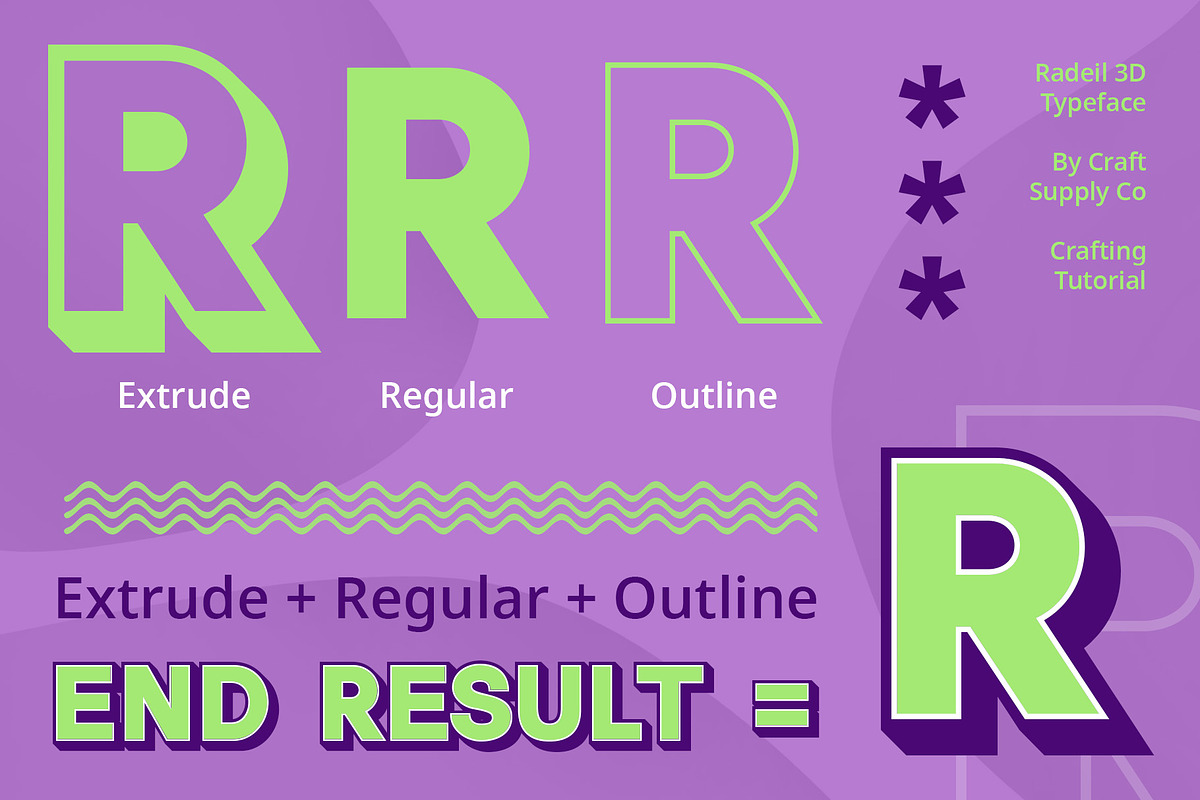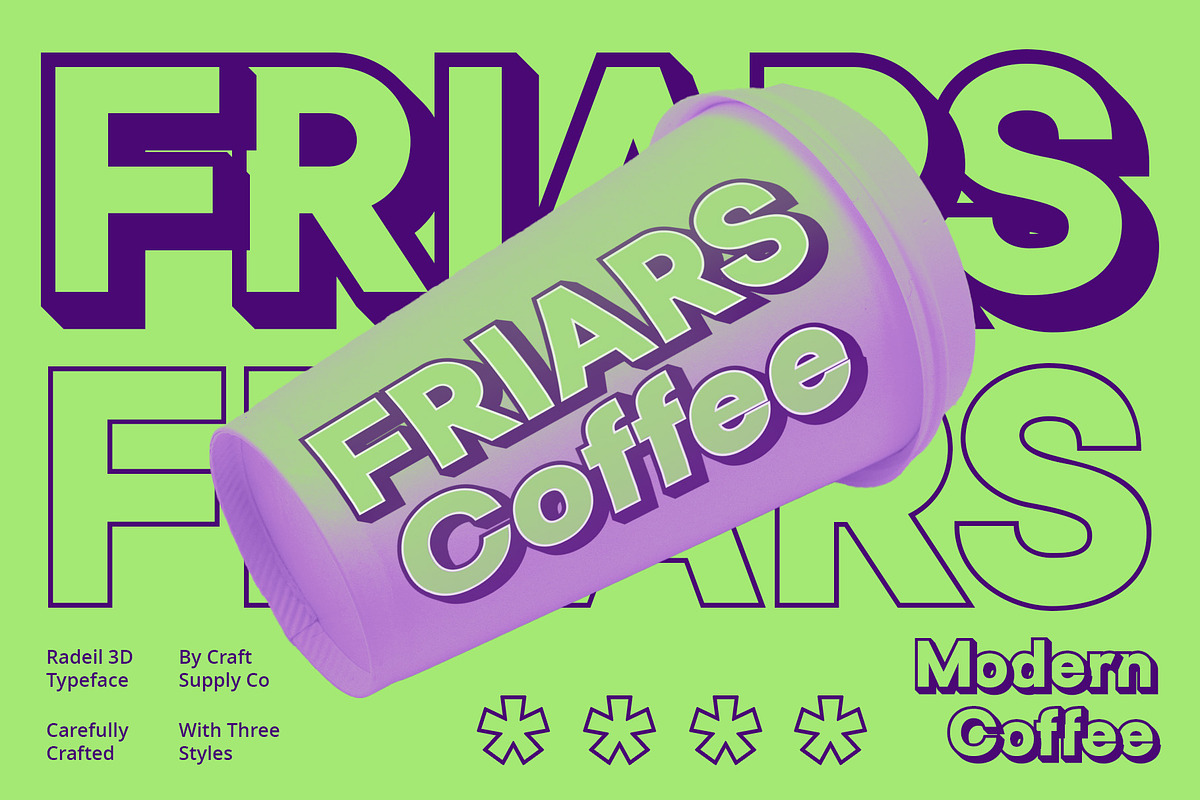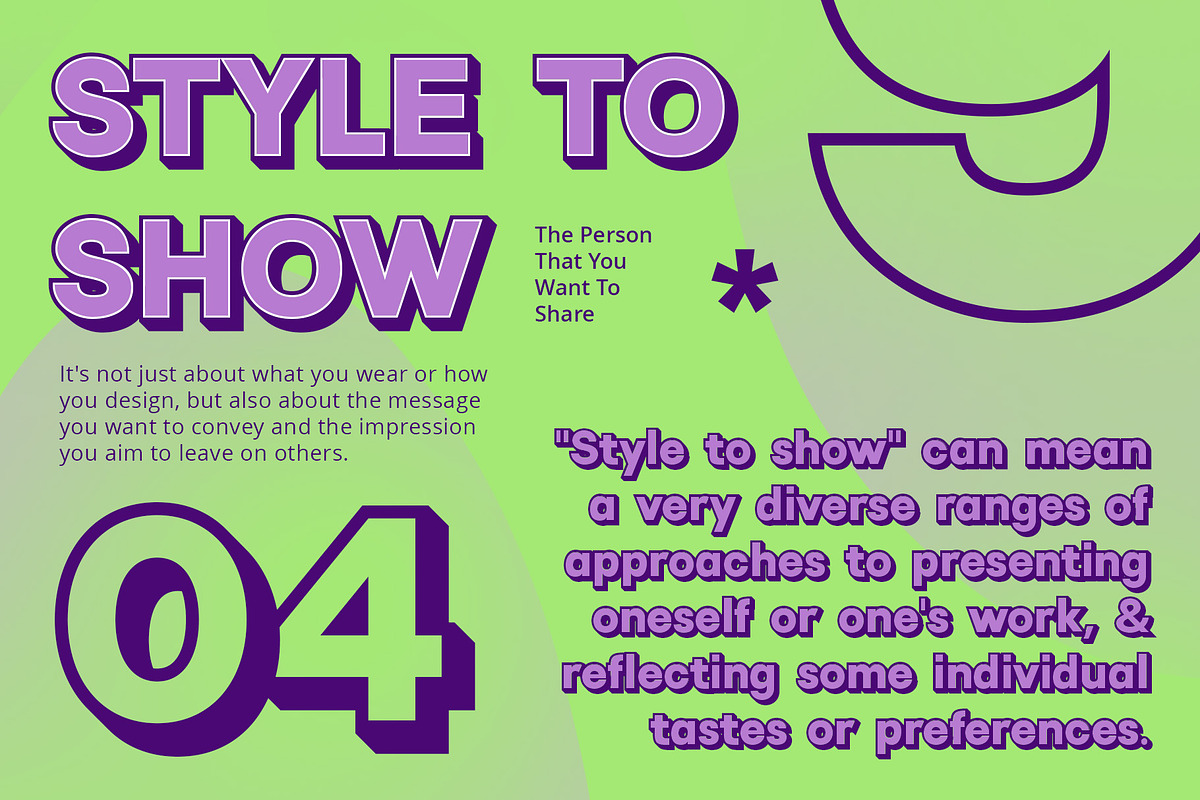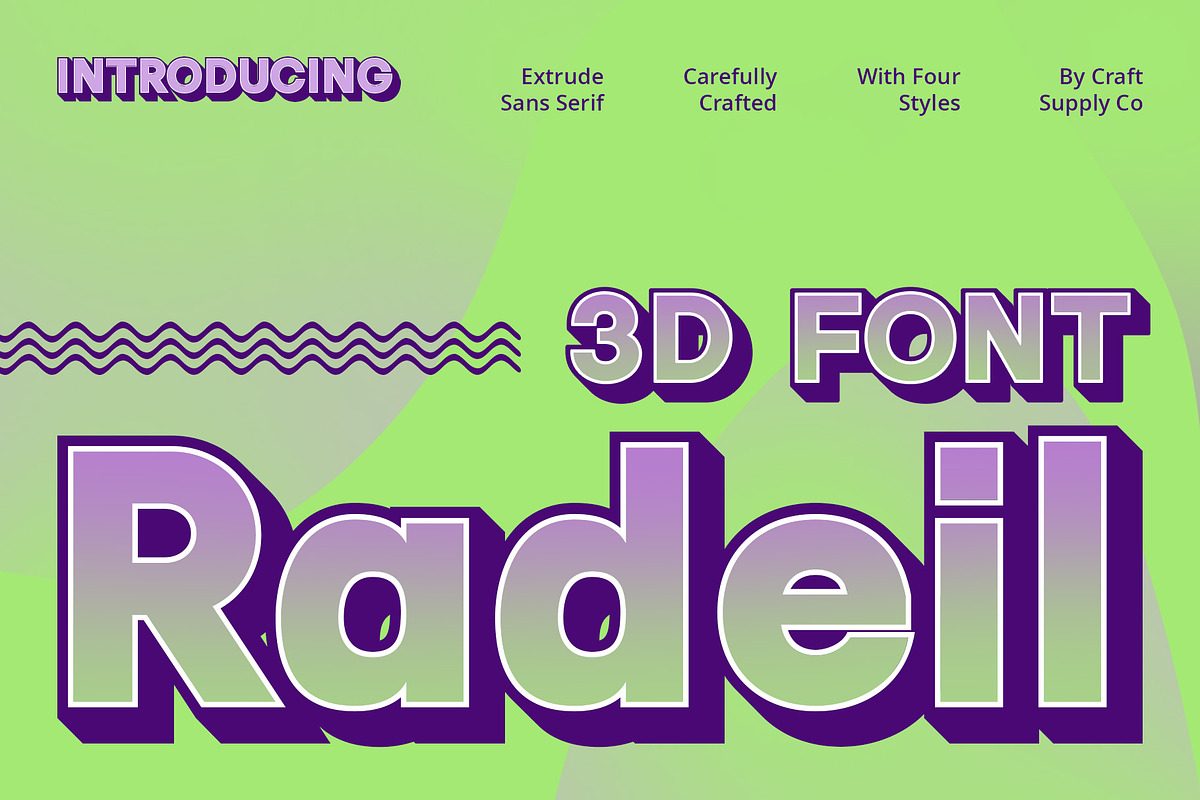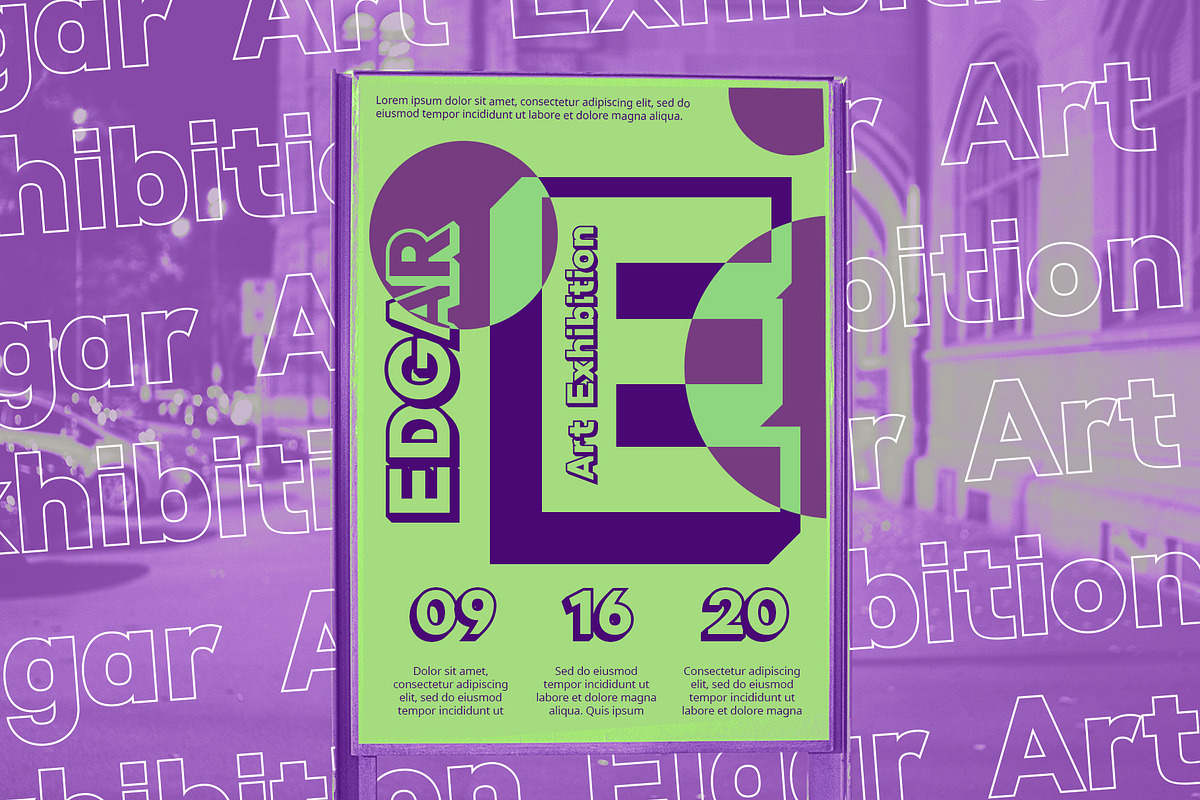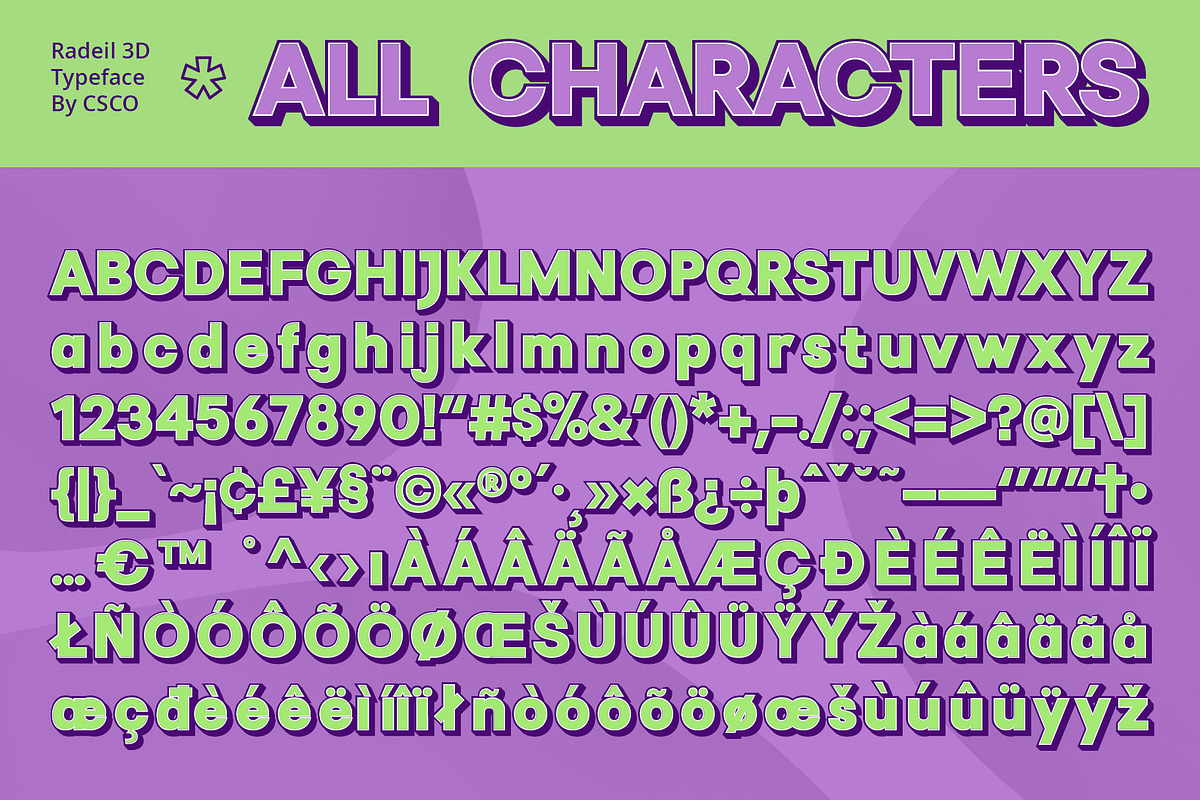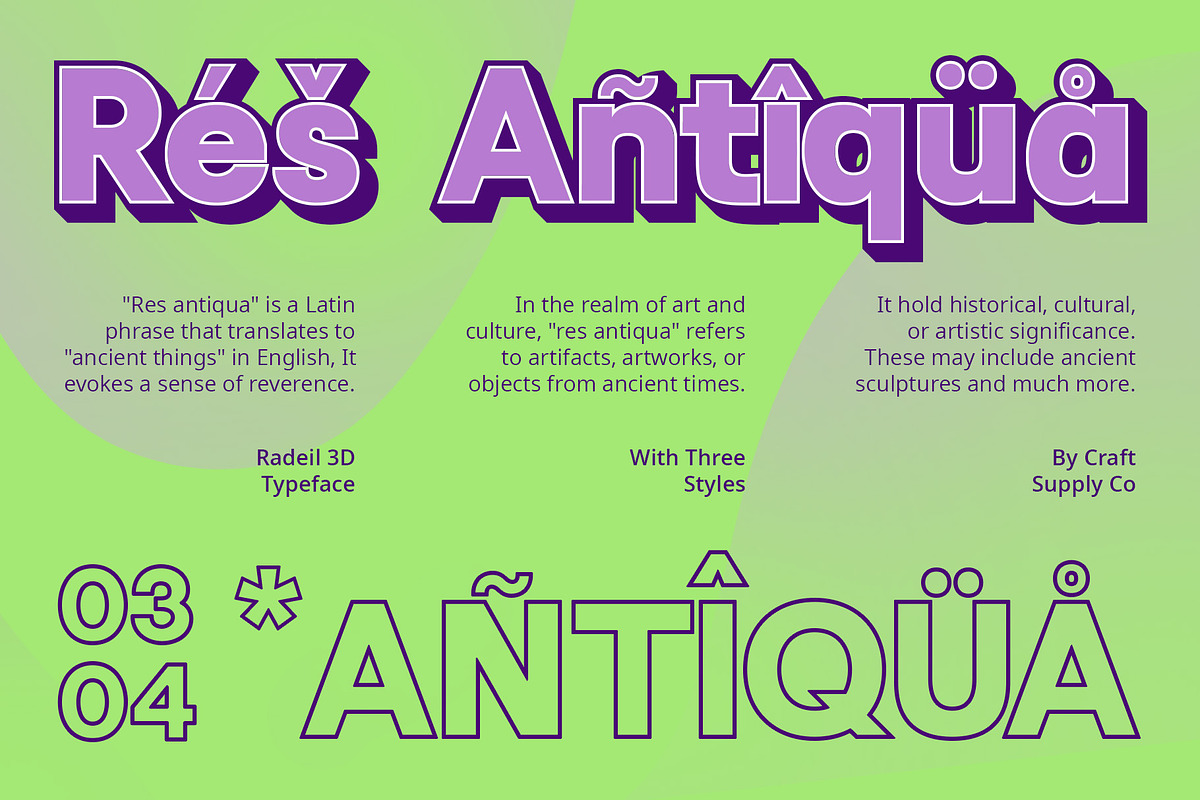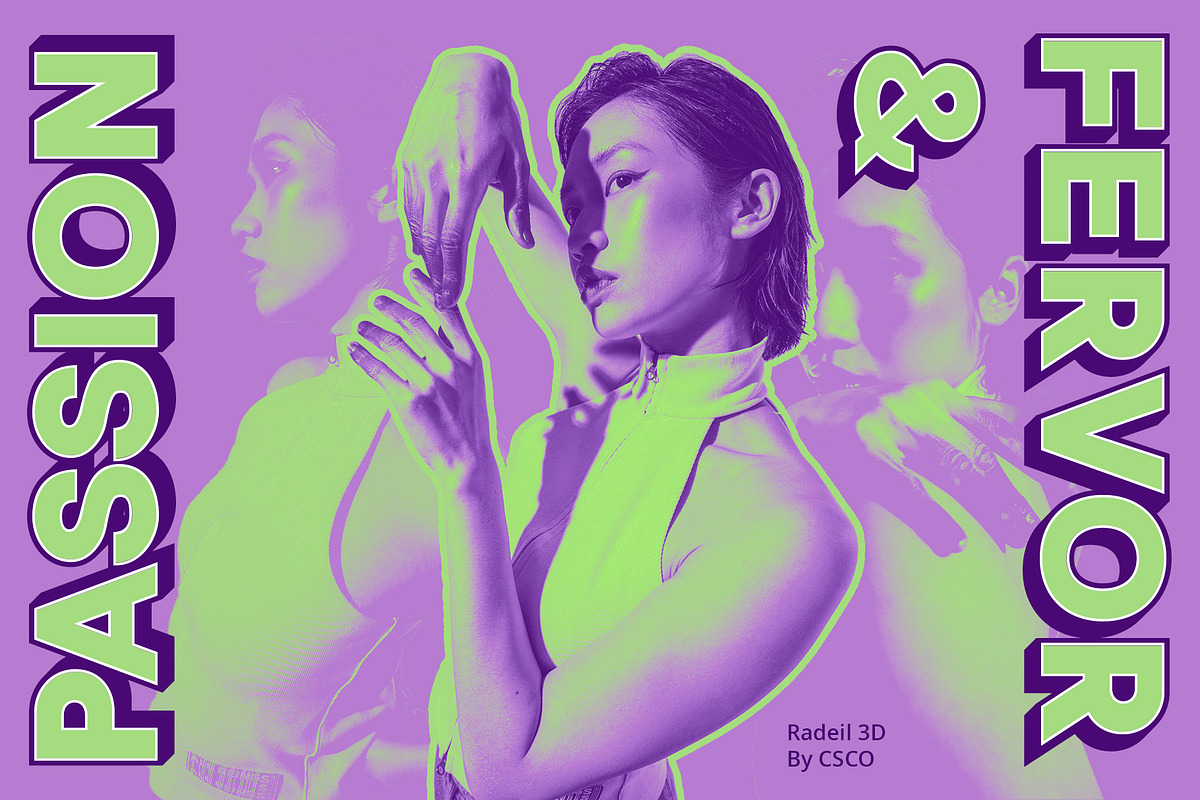
Radeil 3D
Radeil 3D: Redefining Display Typography
Bold and Low Contrast Radeil 3D presents a striking display font characterized by bold sans-serif letterforms with minimal contrast. Its commanding presence ensures high visibility and impact in any display application.
Dimensional Depth with 3D Effects With the addition of 3D effects, This font transcends traditional flat typography, offering depth and dimensionality to each character. The subtle yet effective use of 3D elevates its visual appeal and creates a captivating presence.
Perfect for Display Needs Tailored specifically for display purposes, This font excels in various contexts, from signage and advertising to digital interfaces. Its boldness and dimensional effects ensure optimal visibility and readability in any display setting.
Versatility in Application Beyond its bold appearance and 3D effects, This font proves versatile in its application. Whether used for branding, headlines, or promotional materials, its bold yet accessible style makes it adaptable to diverse design needs.
Bold Statement in Display Typography This font redefines display typography with its bold sans-serif design, low contrast, and captivating 3D effects. Tailored for maximum impact in display applications, it offers versatility and readability, making it a go-to choice for designers seeking to make a bold statement.